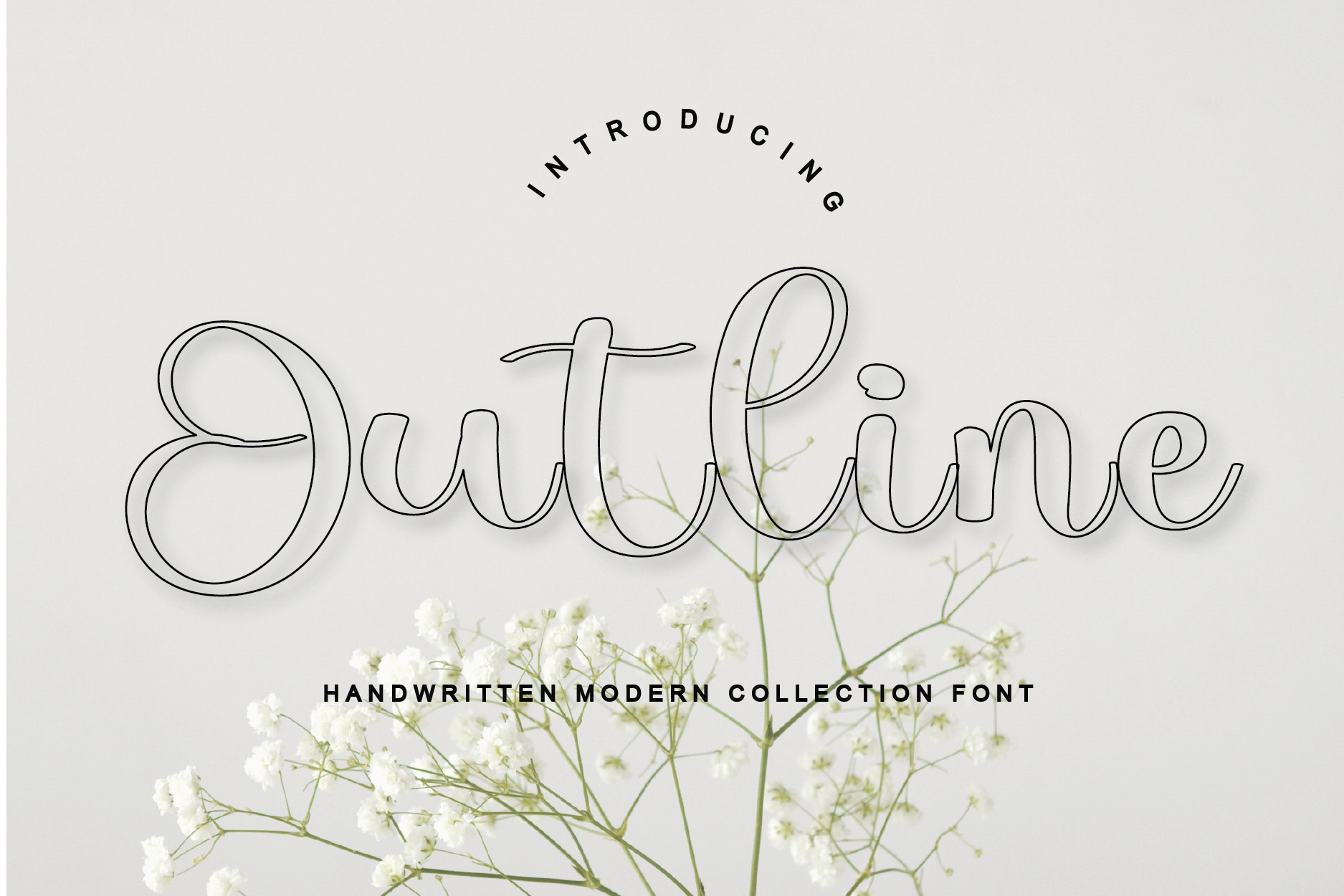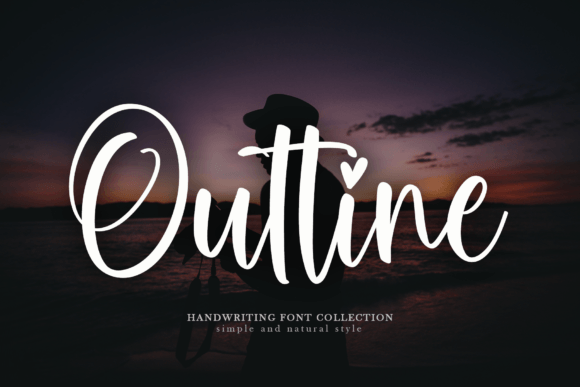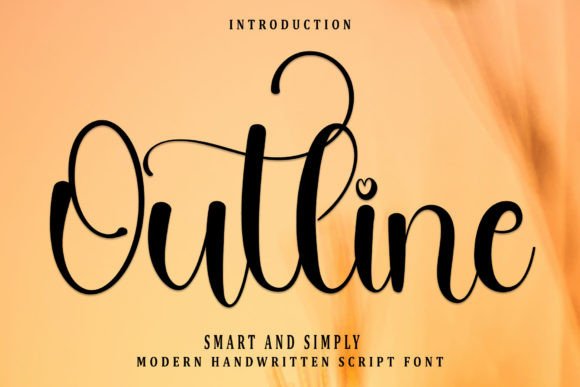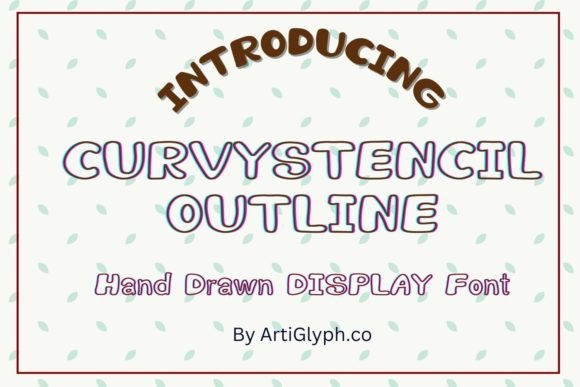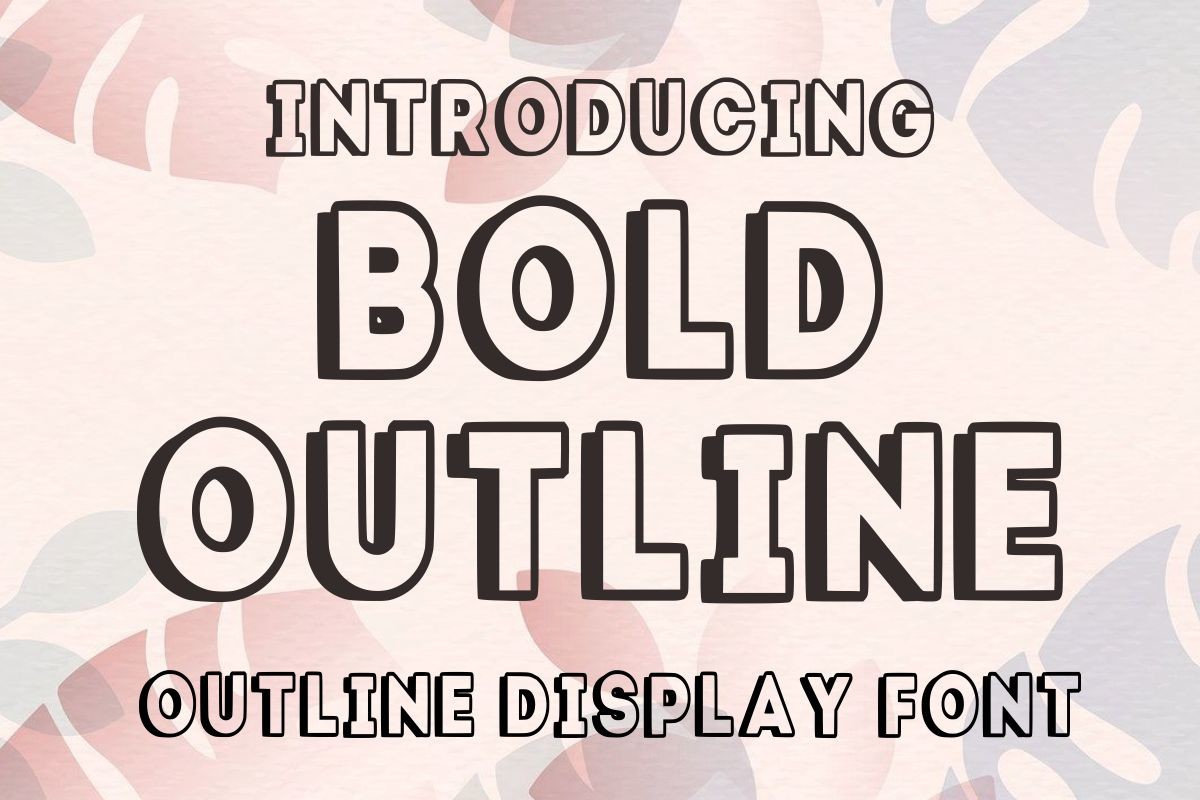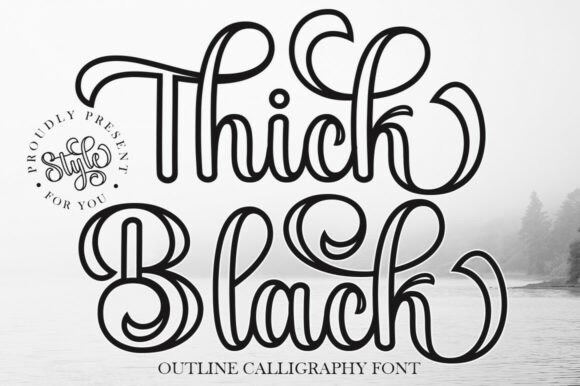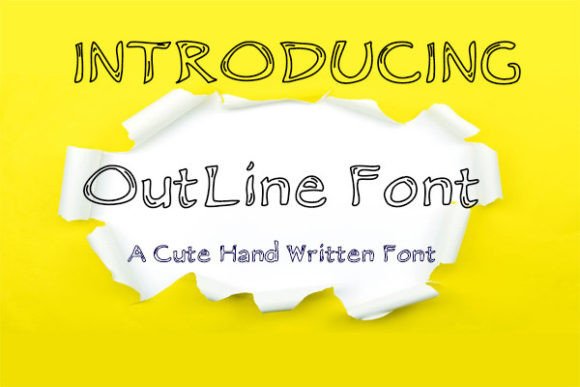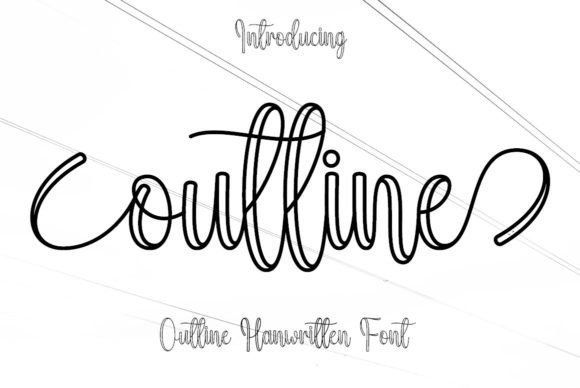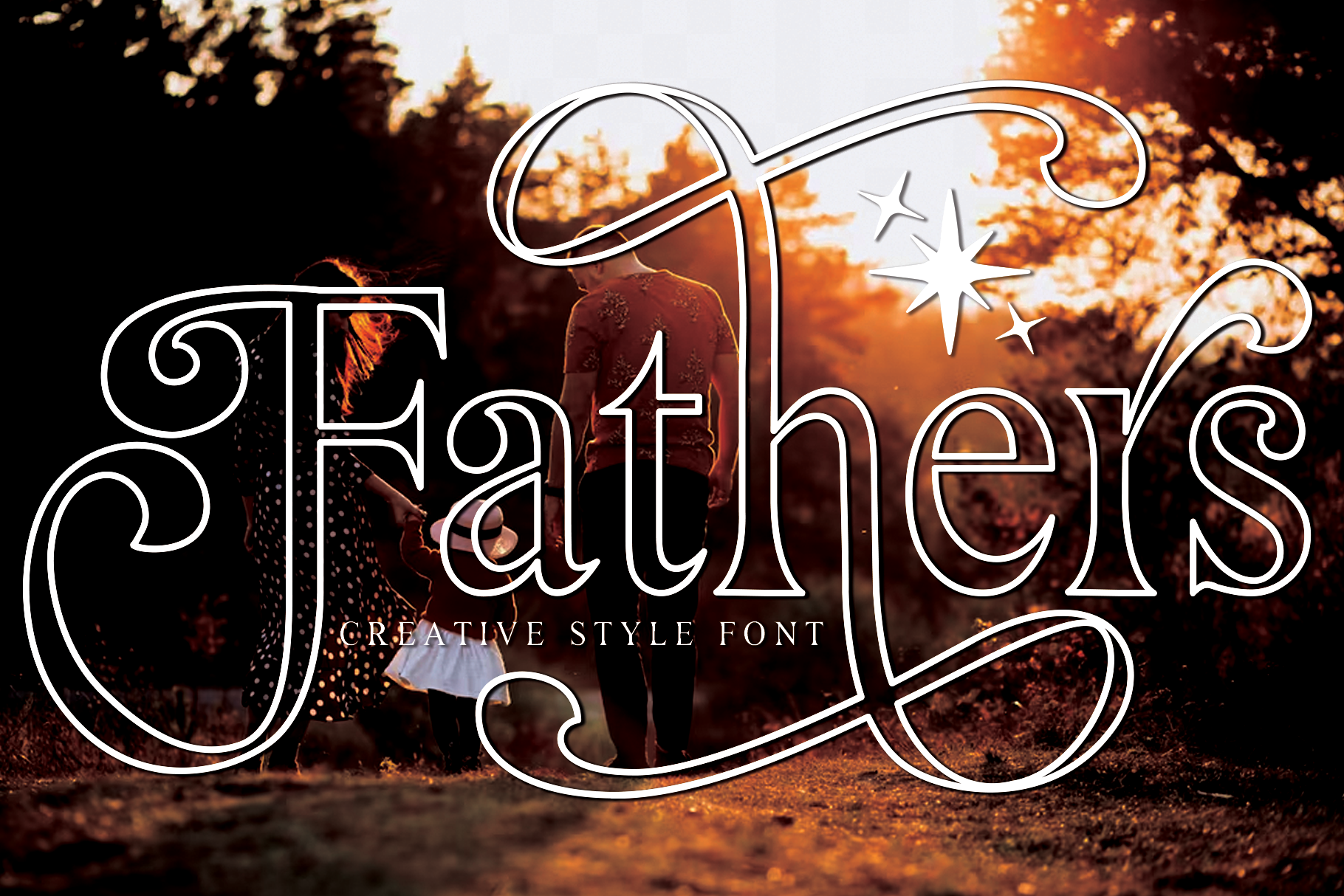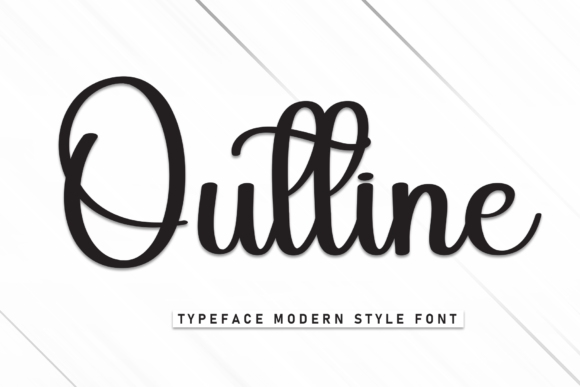
Discover 20 of the most creative outline fonts for 2026, perfect for branding, covers, listings, and digital products. Handpicked from Creative Fabrica and top font publishers, these fonts inspire standout designs for every creative project.
Outline fonts are back in the spotlight, making waves in creative industries as essential tools for impactful branding, book covers, and digital product listings. As global font platforms and AI-powered design tools set the pace for 2026’s trends, designers, branding experts, and creators are seeking the most innovative, future-proof outline fonts. Whether you’re designing for print, digital, or ecommerce, this curated roundup highlights top picks from Creative Fabrica, helping you make confident, standout choices for modern poster design and beyond. If you want strategies on how to use these fonts for branding or digital products, don’t miss 8 Bold Display Fonts to Elevate Your Canva Designs.
Outline Font by hl_studio
This modern outline font by hl_studio brings sleek geometrical letterforms that capture attention immediately. Its clean, crisp lines are perfect for branding projects, tech startups, and contemporary poster designs. Highly versatile, it supports both bold headlines and subtle subtext, letting you create layered effects with ease. The font’s clarity makes it ideal for both print and digital use.
Outline Font by Black line
This outline font from Black line stands out for its minimal yet impactful aesthetic. The streamlined design works beautifully for modern logos, tech branding, and trendy packaging. It is crafted to maintain high readability, even at smaller sizes, making it a solid pick for product labels or Etsy banners. Its simple structure also lets designers combine it creatively with filled or textured fonts.
Outline Font by Inermedia STUDIO
This clean and contemporary outline font from Inermedia STUDIO provides a balanced look for book covers, digital ads, and lifestyle branding. It is characterized by uniform strokes and consistent spacing, giving a polished feel. Its approachable style makes it an excellent choice for event invites and creative portfolios alike. Dependable and versatile, this font stands up well in both large headers and smaller subtext.
Curvystencil Outline Font by ARTify
The Curvystencil Outline Font by ARTify fuses playful curves with classic stencil vibes, resulting in a characterful outline font for modern branding and merchandise. Its unique approach breathes life into posters and apparel designs, offering a fresh alternative to standard outlines. Each letter’s construction allows for high customization, ideal for creative experimentation. Set it against colorful backgrounds for instant visual impact.
Bold Outline Font by Infinity art Studio
Bold Outline Font from Infinity art Studio is specifically designed to make headlines, advertisements, and brand headers pop. With its thick borders and substantial characters, it exudes authority and energy. Its energetic vibe fits perfectly with sports brands, youth markets, and campaign posters. The boldness ensures your message is seen, whether digitally or in large print applications.
Thick Black Outline Otf Font by Kama Studio
Thick Black Outline Otf Font delivers a dramatic, high-contrast outline that’s perfect for statement graphics and logo design in 2026. Its striking lines and bold structure set it apart for sportswear, urban branding, or high-impact social media visuals. The OTF format makes it easy to use in design tools, including those powered by AI. Use it to instantly grab attention in both print and online projects.
Outline Font by ShinCraftShop
This stylish outline font from ShinCraftShop features sharp lines and elegant curve work, making it an excellent match for fashion labels, event marketing, or luxury packaging. Its upscale character enables designers to produce distinctive monograms or add depth to minimalistic compositions. Crisp enough for high-resolution printing, it remains legible across a diverse range of applications.
Outline Font by Hardiboy Design
Outline Font by Hardiboy Design brings a subtle, modern edge to invitations, branding assets, and minimalist design projects. Its gentle construction makes it highly readable while maintaining an artistic feel. It’s a go-to for digital designers seeking a balance between trend-driven aesthetics and practicality. Layer it with filled fonts to add striking contrasts in social posts or ad creatives.